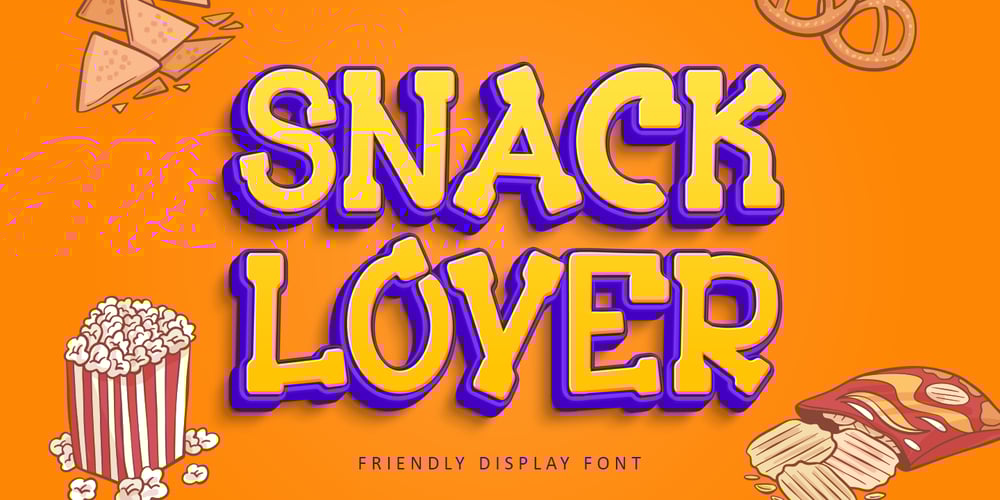
Snack Lover
Snack Lover font
Snack Lover Font Family was designed by Bayu Suwirya and published by Illushvara. Snack Lover contains 1 styles and family package options. Hello,We are so excited to announce our new fonts “Snack Lover” is a friendly, casual and fun display font. Whether you use it for cartoon related designs, children games or just any creation that requires a lovely touch, this font will be an amazing choice.Features : Uppercase and lowercase Numbers Symbols Multilingual Accent If you have any question, don’t hesitate to contact me. Happy Designing !!!Thank You,Bayu Suwirya